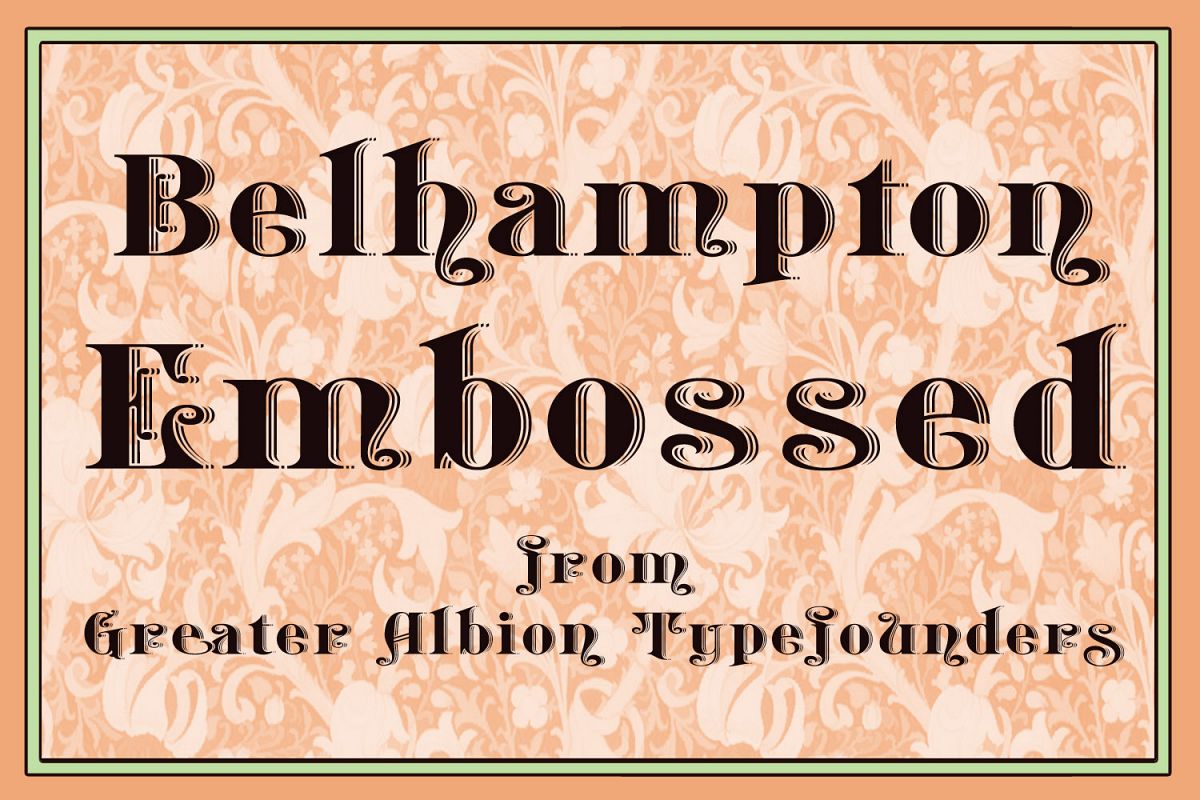
Belhampton Embossed
Belhampton is a lively display family, full of the spirit of the Edwardian era.  Six typefaces are offered: regular, bold, light, oblique, embossed and outline.  All include an extensive range of stylistic alternates and discretionary ligatures, as well as lining and old-style numerals. Belhampton is ideal for poster and display work, or just the thing for any piece of Belle Epoque design.
Greater Albion TypeFounders